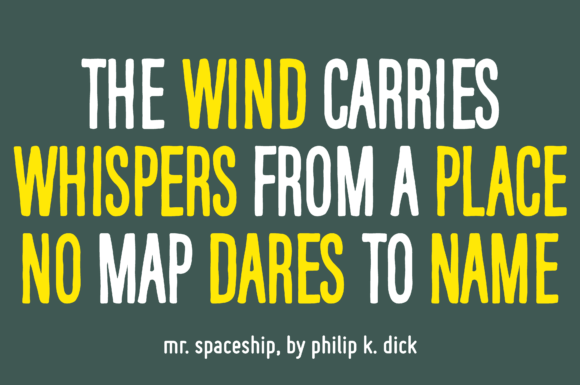
Railtown Font
Elevate your designs with this tall, condensed, and distressed sans serif font — perfect for bold headlines, vintage branding, posters, apparel, and editorial layouts.
Railtown font’s rugged texture and minimalist style make it ideal for projects that demand both impact and character.
Available in regular and italic styles, Railtown versatile typeface is a must-have for graphic designers, crafters, and creatives looking to add an authentic, handcrafted edge to their work. Download instantly and start creating standout designs today.